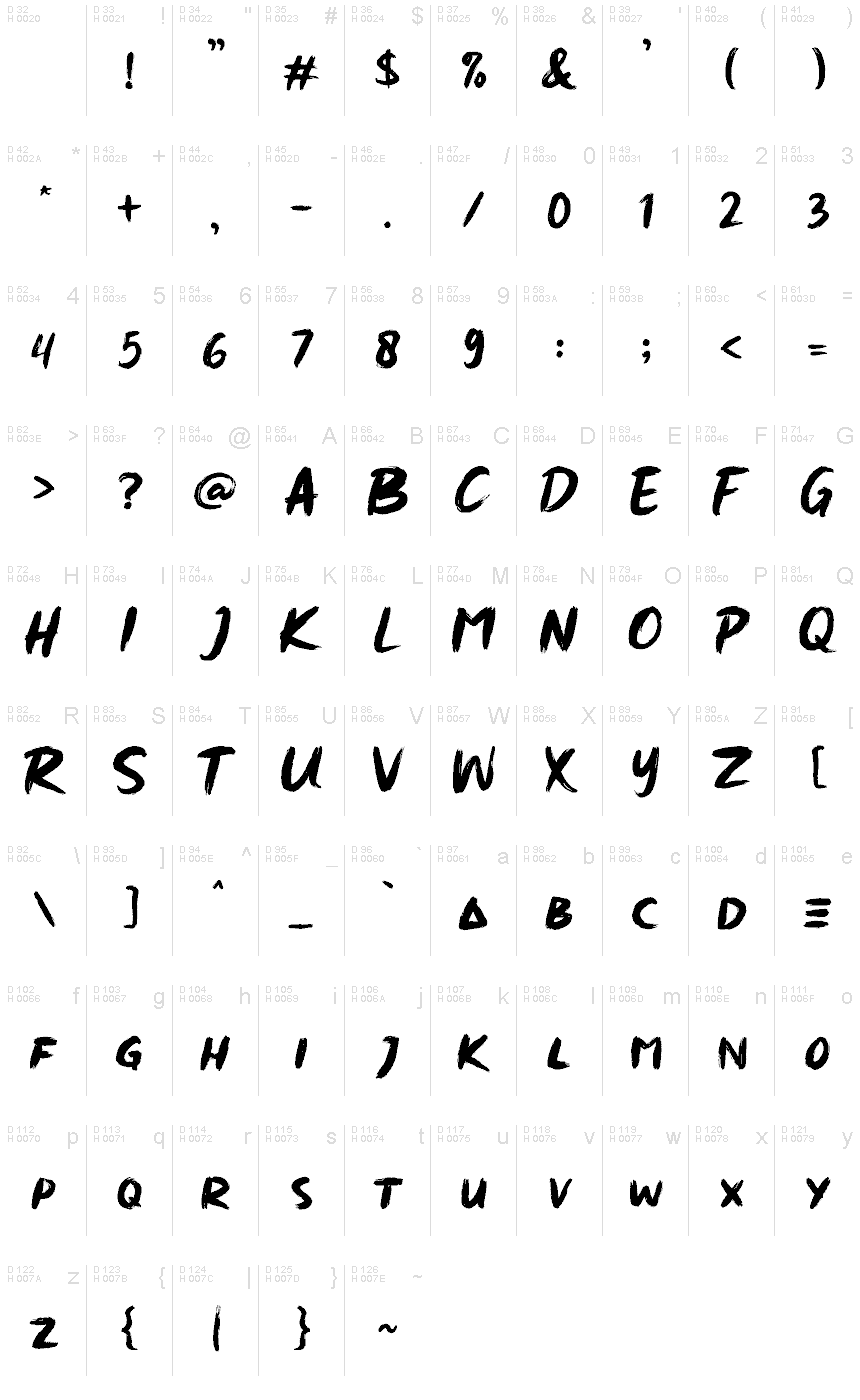
EastTiger-Regular
East Tiger font by Craft Supply Co is a free brush font featuring a handmade appearance with a textured finish for an expressive style. It has an artistic vibe and an energetic mood stemming from its textured, brush-like letters that will make your audience feel you even before they get the message of your words.
Branding projects, packaging designs, invitation cards, T-shirt typography, watermark design for photographers/met artists/illustrators/designers, social media related texts or ads such as quotes or greetings; nobody can predict the uses of this East Tiger; not even its designers!